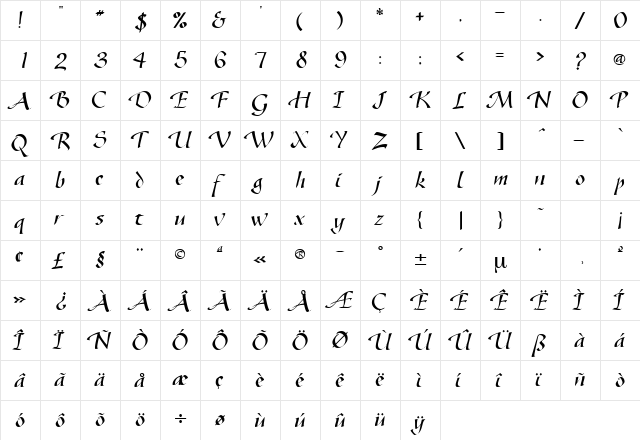
SonyannaScriptSSK Regular
Design Context for SonyannaScriptSSK Typeface
SonyannaScriptSSK flows with the natural rhythm of handwritten lettering, making it ideal for designs that call for warmth and personal expression.
Font Pairing: Combine SonyannaScriptSSK with a simple geometric sans for maximum contrast — the tension between flowing curves and clean structure is a classic typographic pairing.
Pro Tip: Pair SonyannaScriptSSK with a clean sans-serif for supporting text. The contrast between fluid script and geometric structure creates an elegant typographic hierarchy.